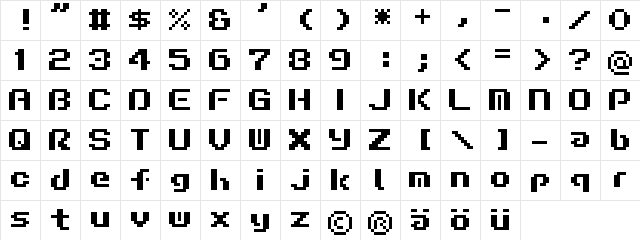
Liquid Kidz spazeout Regular
| Designer | ck! [freakyfonts] |
Liquid Kidz spazeout is a composed and adaptable typeface that performs quietly and consistently across a wide range of design contexts.